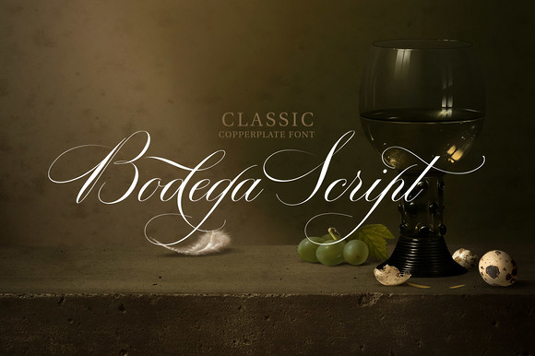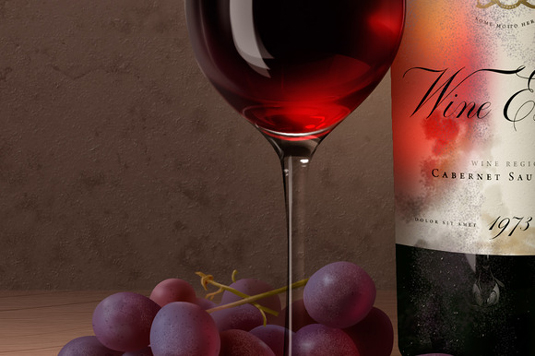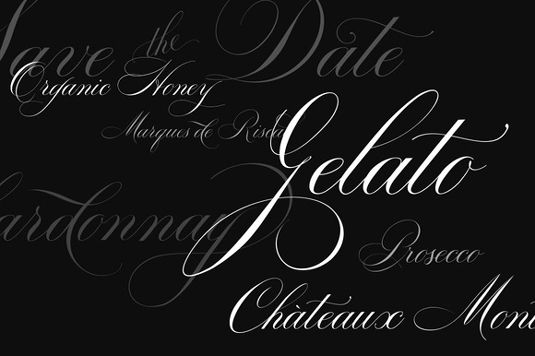
Font of the day: Bodega Script
Bodega Script from Vatesdesign
If you're on the hunt for an elegant script font, then Bodega Script from Vatesdesign could be just the solution. The display font oozes with charm – a perfect choice for vintage-style logos, packaging designs and more.